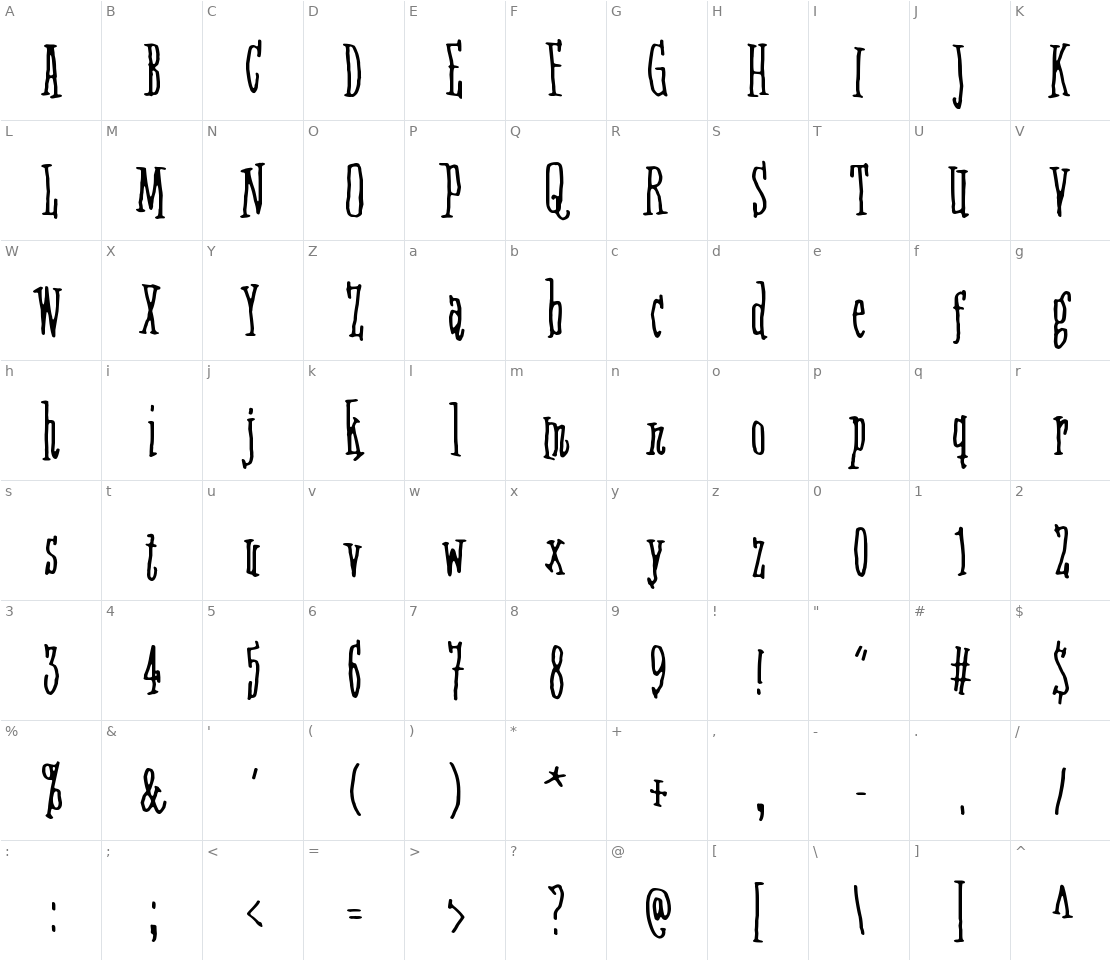
Fifteen Feet Of Pure White Snow
Fifteen Feet Of Pure White Snow is a tall, narrow novelty face from junkohanhero with hand-drawn letterforms that wobble and lean in unpredictable ways. The condensed proportions keep it compact while the irregular strokes give each character a loose, whimsical personality, like lettering sketched quickly on a foggy window. Best kept to headlines and short display text where its quirky charm can register without wearing thin.